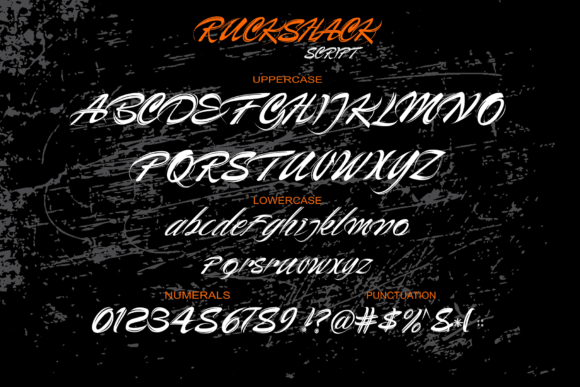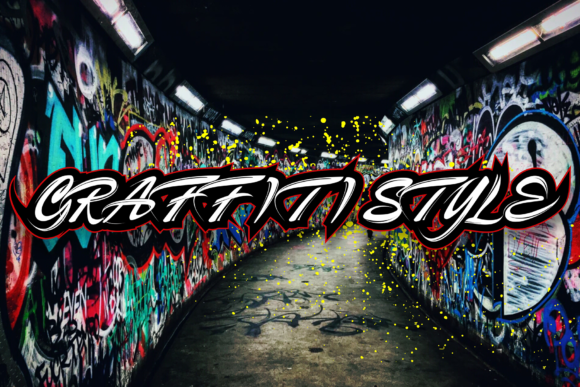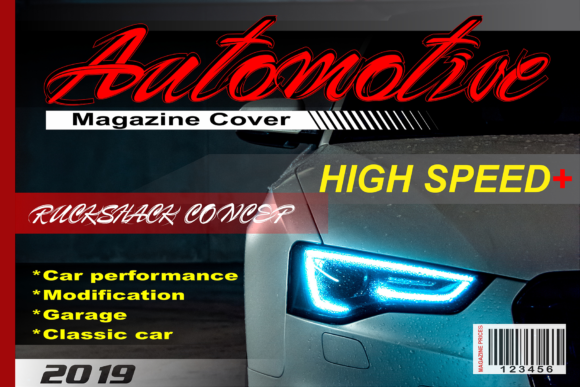
Introduction to Ruckshack Font
Ruckshack is a sweet and natural script with a cool vibe.
Get inspired by its unique charm .
Key Features of Ruckshack Font